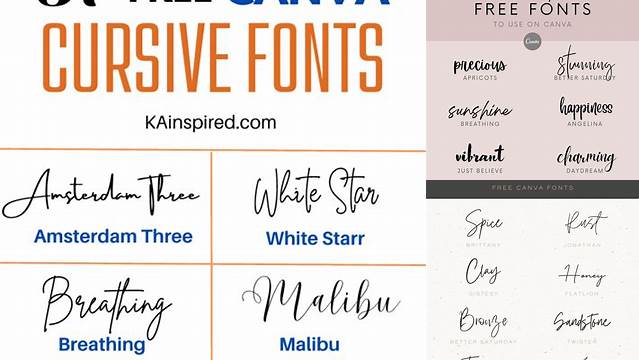
Amazing Free Script Fonts For Canva
Hey everyone! Are you ready to dive into the world of stunning typography and elevate your Canva designs? If so, you're in the right place! We're going to explore the best free script fonts for Canva, helping you add that extra touch of elegance, personality, and flair to your projects. Whether you're crafting social media posts, designing presentations, or creating marketing materials, the perfect script font can make all the difference. So, buckle up, because we're about to discover some amazing fonts that won't cost you a dime!
1. Introduction to Script Fonts in Canva
Alright, let's kick things off with a quick intro to script fonts and why they're so awesome, especially when it comes to Canva. Guys, script fonts are basically fonts that mimic handwriting. Think of them as the digital equivalent of elegant penmanship, cursive writing, or calligraphy. They often feature flowing lines, connecting strokes, and a touch of sophistication that can instantly elevate any design. They're super versatile and can be used for a variety of purposes, from adding a personal touch to your branding to creating eye-catching headlines and invitations. Now, Canva, being the user-friendly design platform that it is, makes it super easy to incorporate script fonts into your projects. You don't need to be a design guru or a typography expert to get started. With a few clicks, you can find, add, and customize script fonts to fit your unique style and vision. It's all about finding the right font that matches your brand's personality and the message you want to convey. So, whether you're going for a romantic, playful, or professional look, there's a script font out there for you. Canva's vast library of fonts, including a great selection of free options, makes the whole process a breeze. Choosing a script font isn't just about picking a pretty typeface; it's about making a statement. It's about infusing your designs with emotion, character, and a touch of artistry. That's why knowing the best free script fonts for Canva is so crucial!
2. Why Use Script Fonts in Your Canva Designs?
So, why should you even bother with script fonts, you ask? Well, my friends, script fonts bring a unique blend of style and personality that other font types often can't match. When you integrate a script font into your Canva designs, you're essentially adding a human touch, as they mimic handwritten styles, they can make your designs feel more personal and engaging. This can be super effective for making connections with your audience. Script fonts can really grab attention. They stand out, making your headlines, logos, and other design elements more noticeable. This is especially useful in a world overflowing with visual content, where capturing attention is key. A well-chosen script font can be used to add a touch of elegance and sophistication to your designs. This can be perfect for wedding invitations, branding for luxury goods, or creating a professional appearance for your business. The flowing lines and graceful curves of script fonts also create a sense of visual harmony. They can make your designs more aesthetically pleasing and easier on the eye, which is always a win. Choosing the right script font can help define your brand's identity, providing it with a unique voice and personality. It helps your audience immediately recognize your work and associate it with a specific style or vibe. Plus, script fonts are fantastic for emphasizing specific words or phrases. You can use them to highlight important information and make certain elements stand out. The best free script fonts for Canva can really elevate your designs.
3. Top Free Script Fonts Available in Canva
Let's get down to the good stuff and dive into some of the best free script fonts for Canva! Canva has an amazing library with a bunch of free script fonts. I'm going to give you a sneak peek at some of the most popular and versatile options. First up, we have 'Dancing Script'. This font is super popular for a reason! It's friendly, approachable, and has a natural flow, making it ideal for adding a touch of whimsy to your designs. Next, there's 'Great Vibes'. This one is a bit more elegant and formal, making it perfect for invitations, logos, and branding projects that require a sophisticated feel. Then, we have 'Satisfy', which is a bold and playful script font that really grabs your attention. It's fantastic for headlines, social media graphics, and any design that needs a bit of oomph. 'Alex Brush' is another winner, offering a classic and refined look. It's perfect for adding a touch of class to your designs, whether it's for stationery, quotes, or any other project that needs a touch of elegance. Finally, there's 'Playball', which is a fun and lively script font that brings a sense of energy and playfulness to your designs. Ideal for posters, flyers, or any creative project that requires a youthful and energetic vibe. Remember, the key is to experiment and find what works best for your brand or project. Play around with different font pairings and see how these script fonts can transform your designs. With the best free script fonts for Canva, you are good to go!